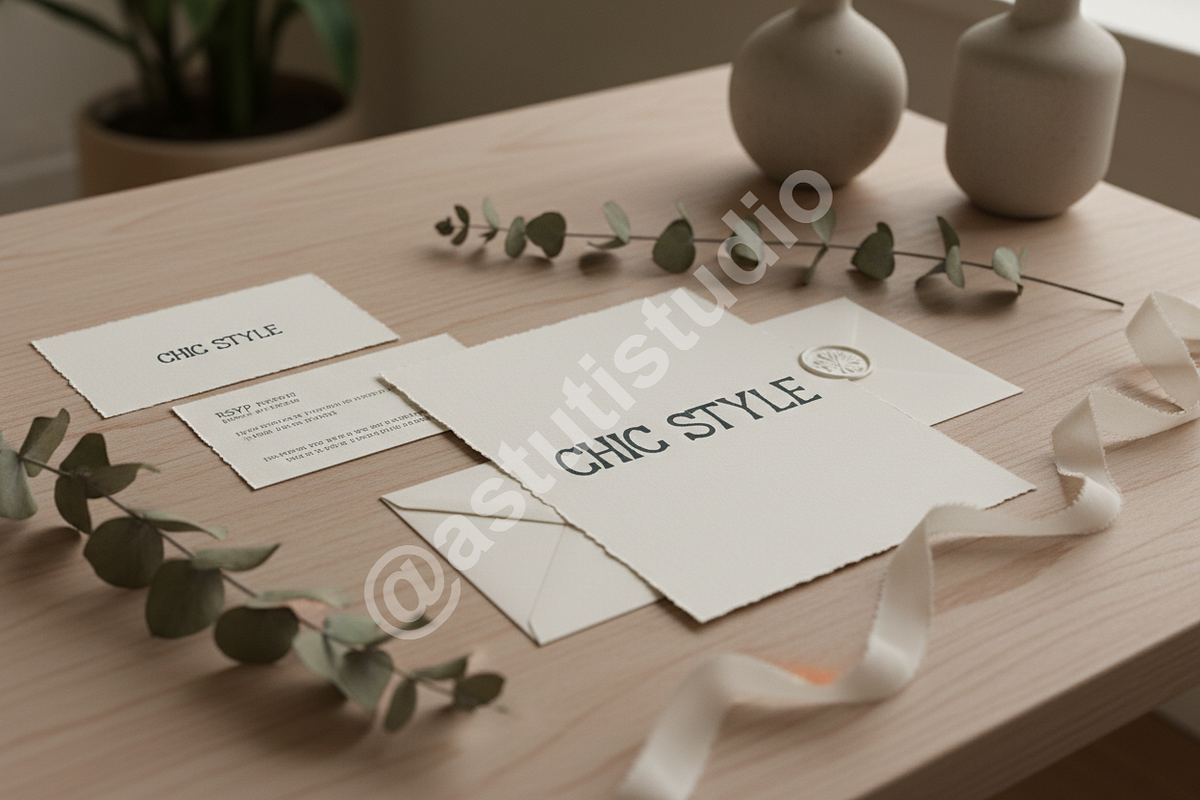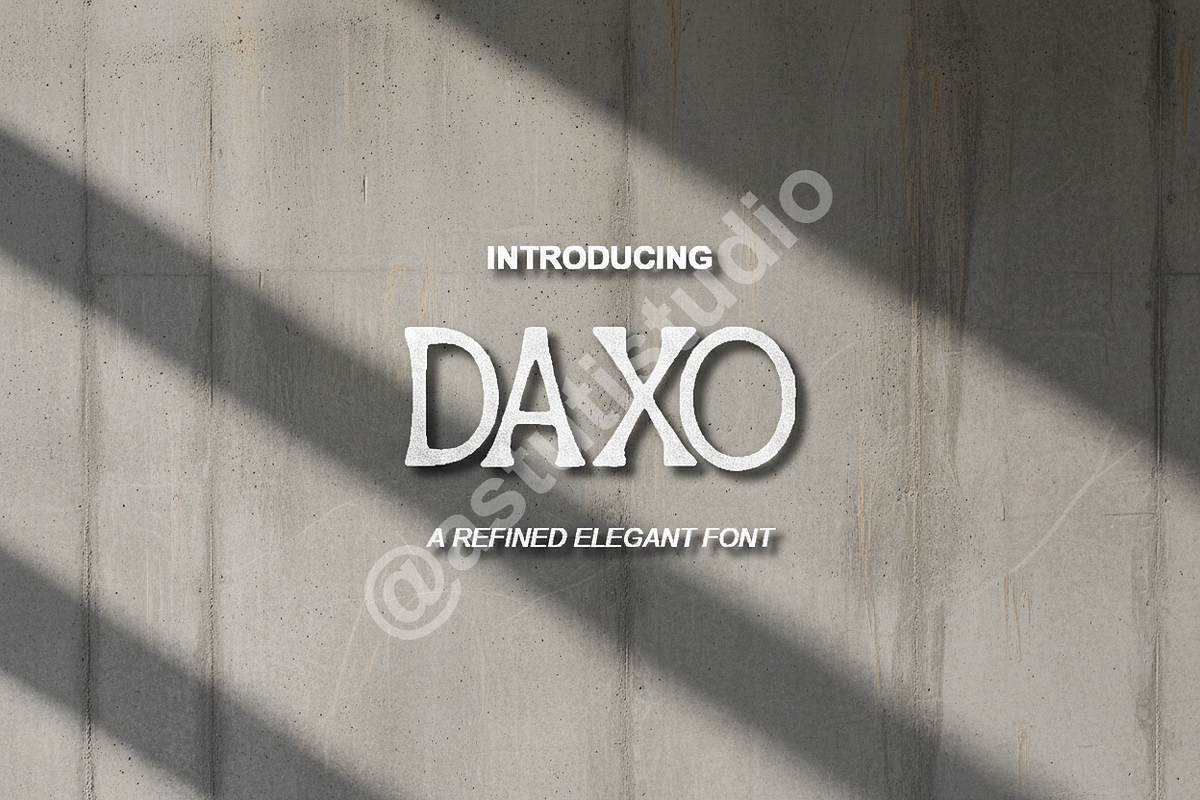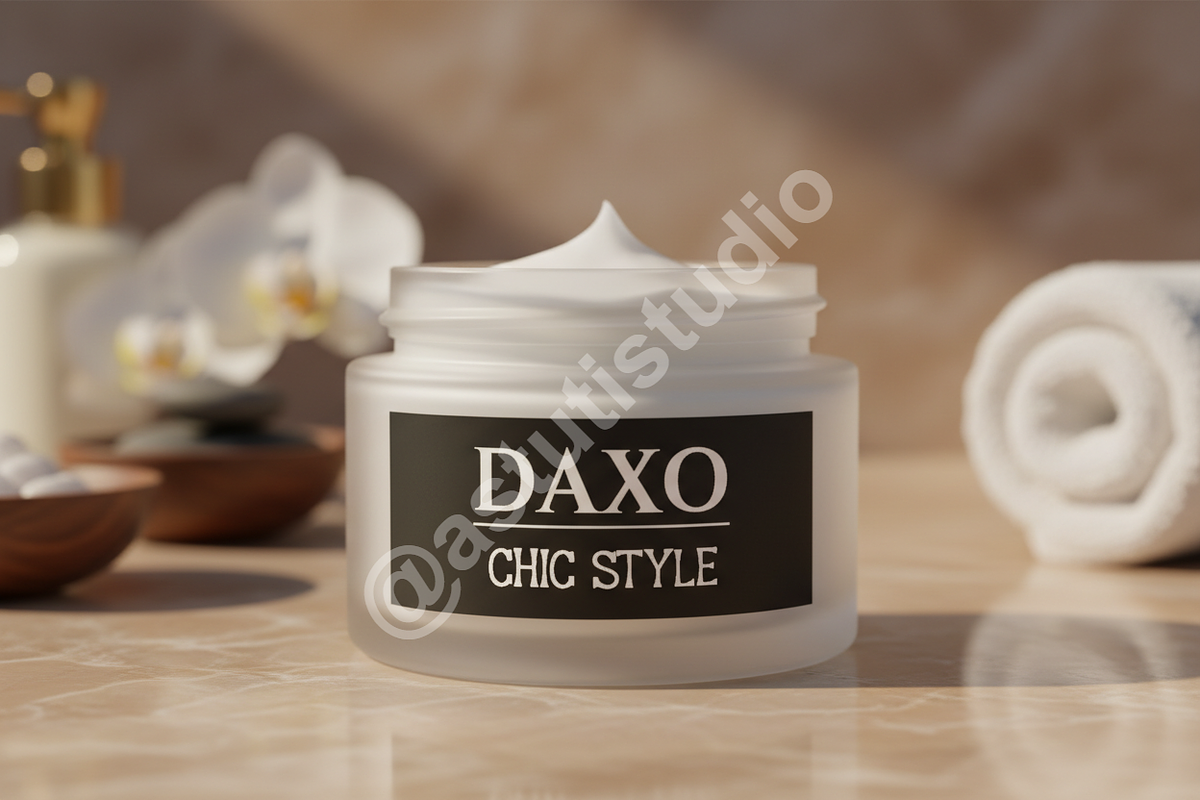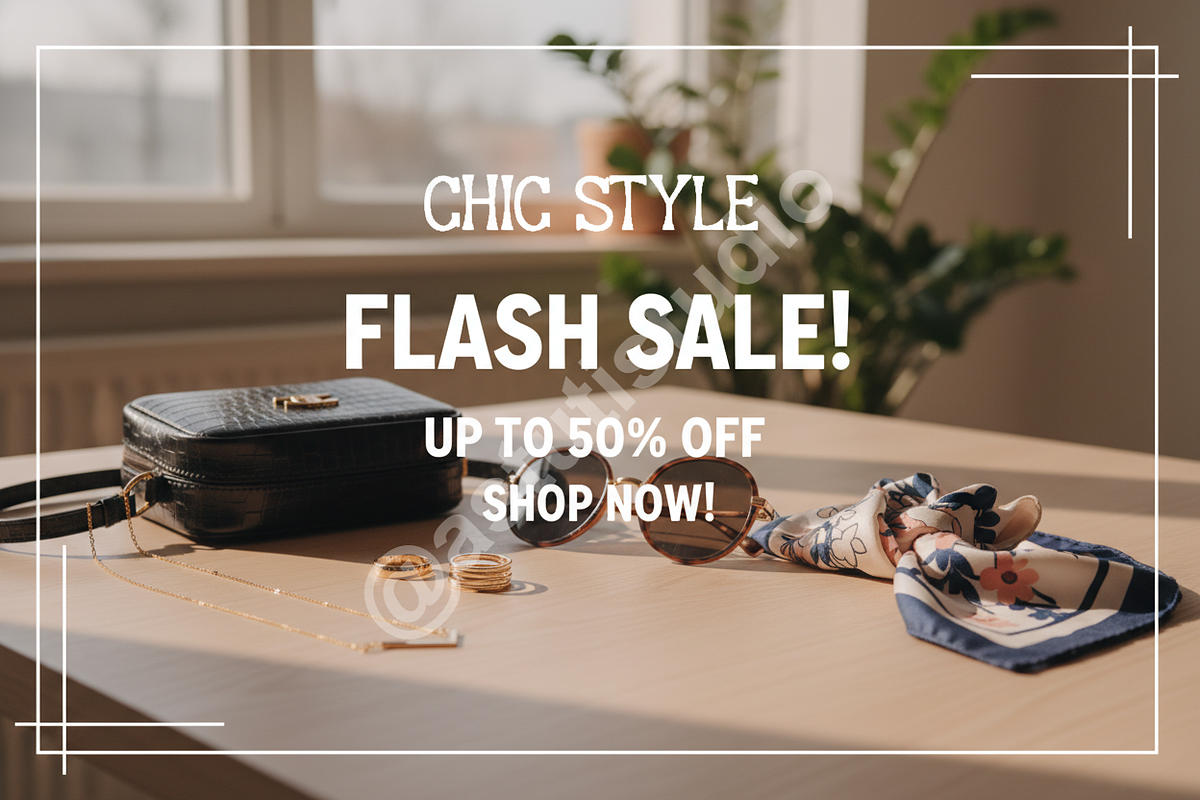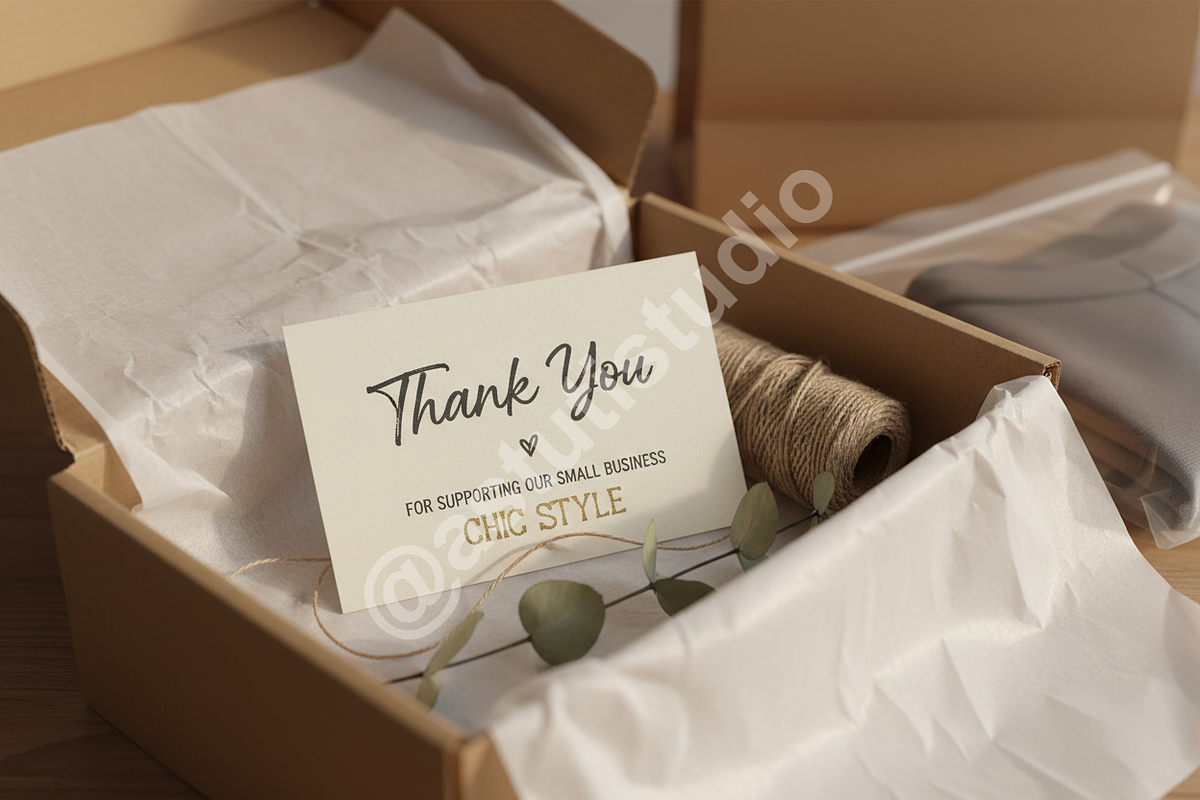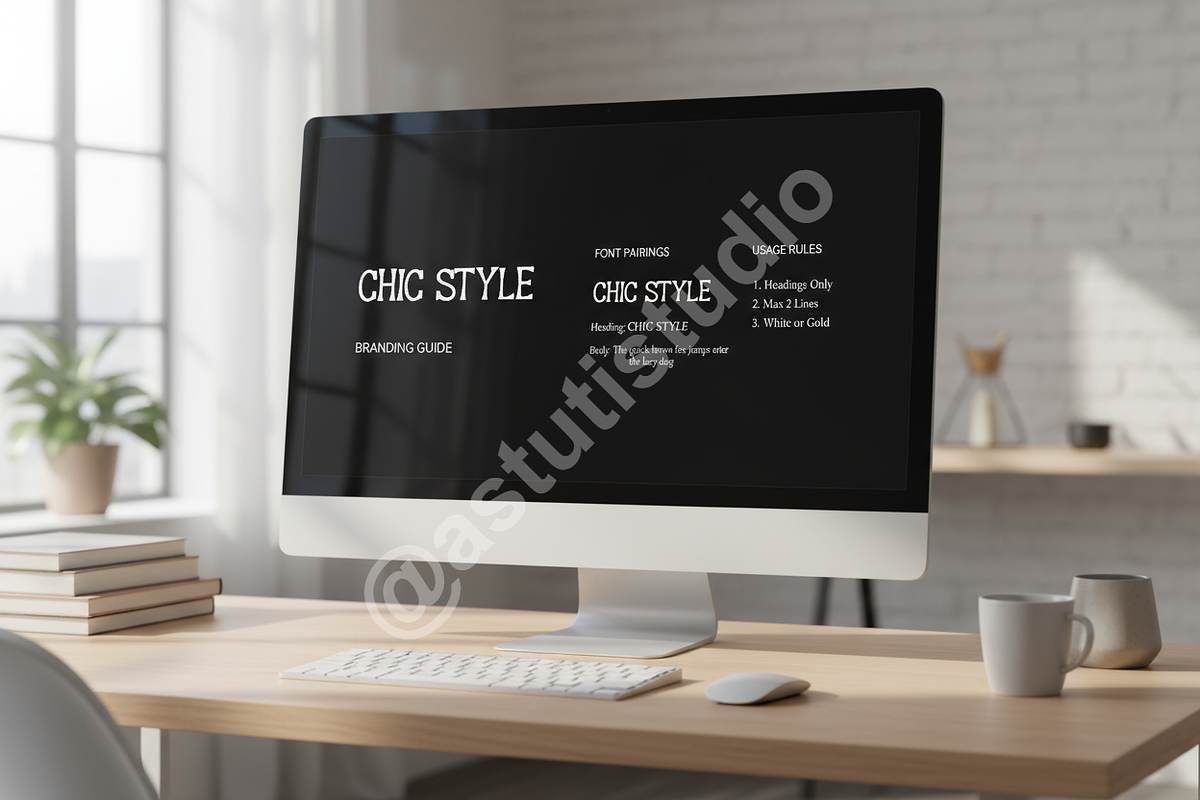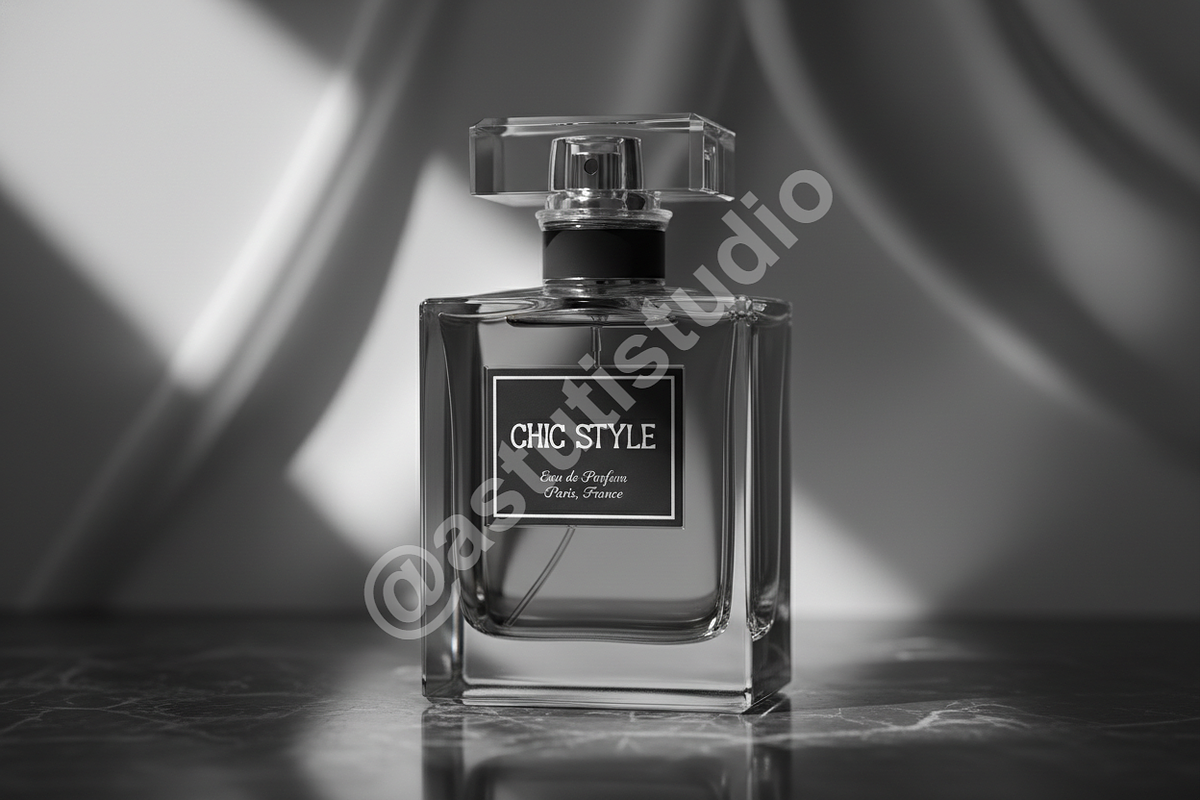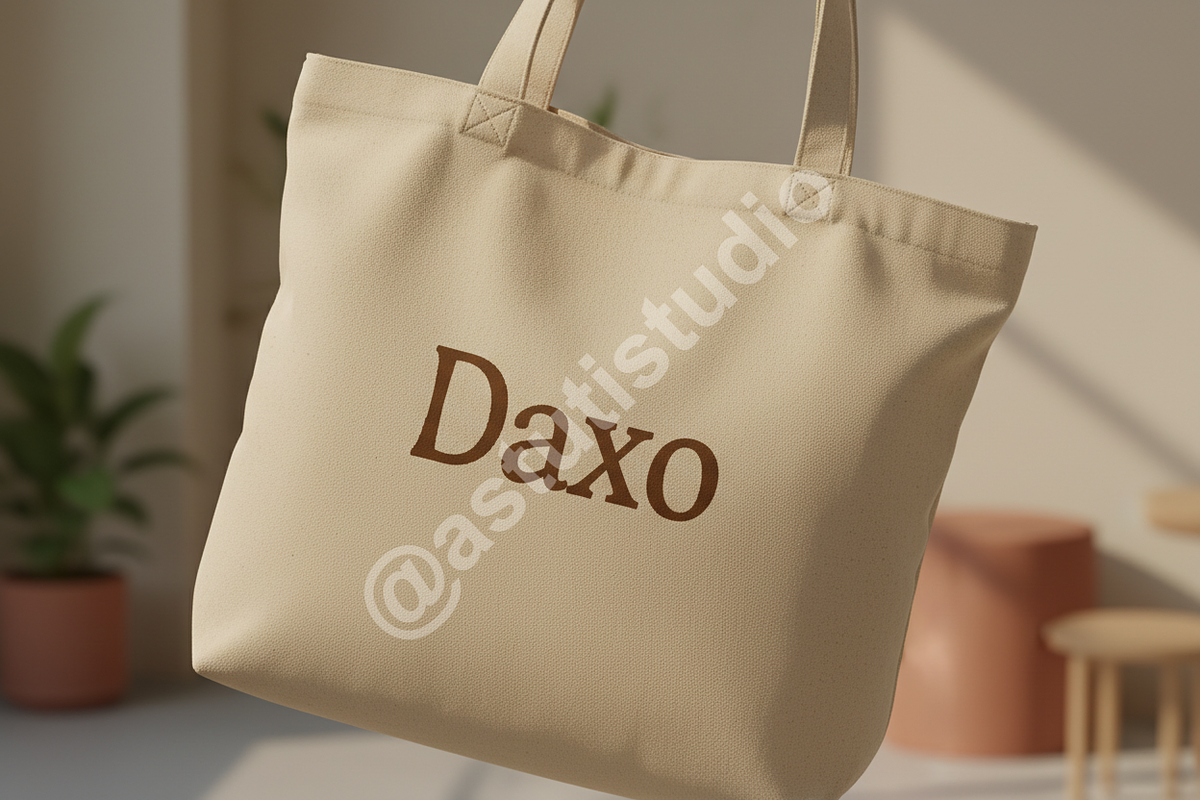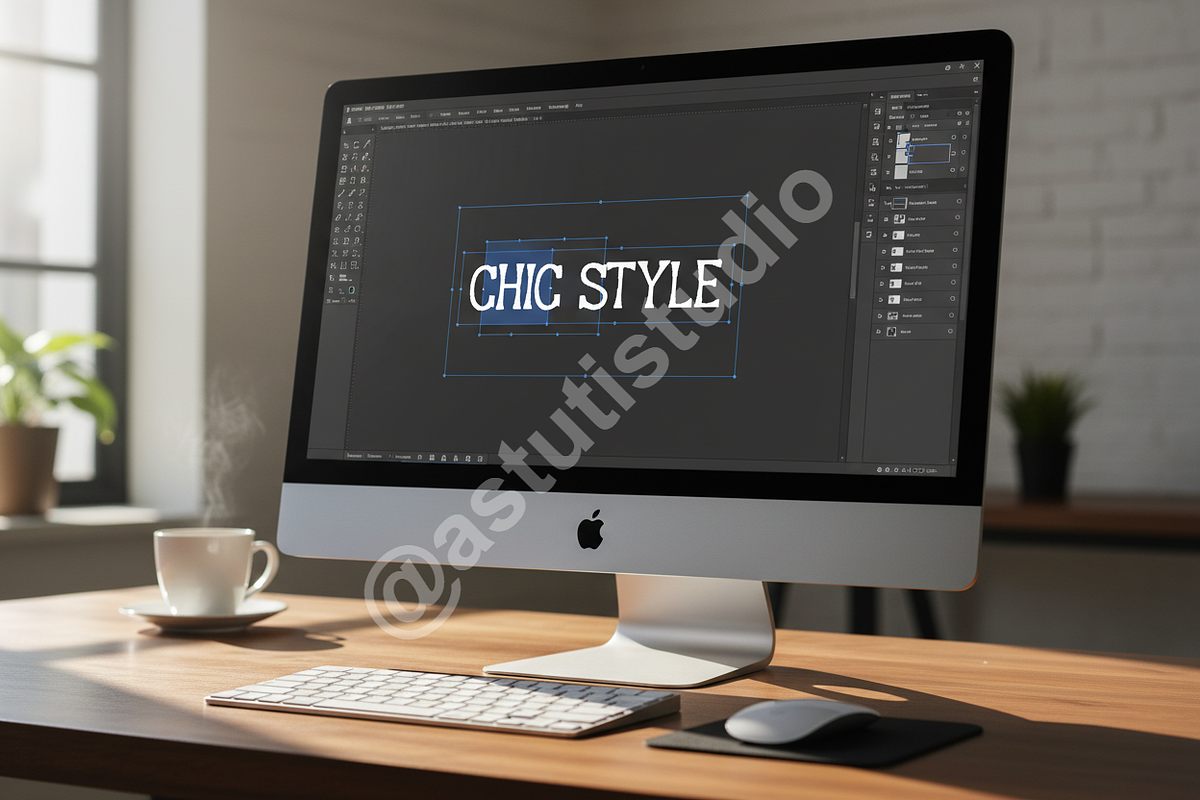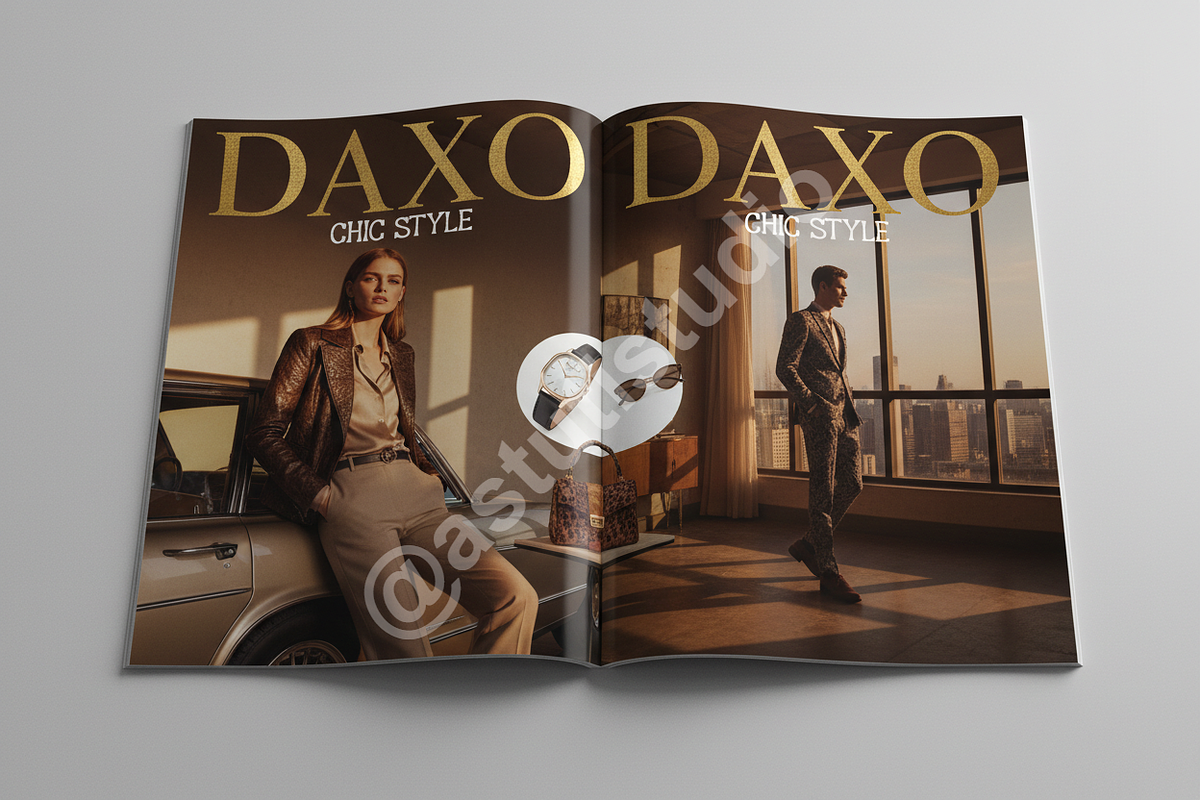
Daxo | Elegant High-Contrast Serif T
Introduction: Daxo is a high-contrast modern serif typeface meticulously crafted for the luxury and high-fashion industries. Its sharp terminals, dramatic thick-thin transitions, and refined curves exude undeniable sophistication. Daxo is the quintessential choice for projects requiring an elevated aesthetic, ensuring your brand identity resonates with premium quality and timeless elegance.
- High-Contrast Design: Optimized for impactful display use, luxury branding, and sophisticated headlines.
- Stylistic Ligatures & Alternates: A comprehensive set of special glyphs to create unique logo marks, monograms, and highly stylized editorial layouts.
- Extensive Glyph Support: Includes standard punctuation, numerals, and broad Latin multilingual characters.
- Versatility: Perfectly suited for magazine layouts, premium product packaging, exclusive social media campaigns, and elegant digital platforms.
- Full set of discretionary and standard Ligatures
- Stylistic Alternates for key characters
- Multilingual Support (Western and Central European)